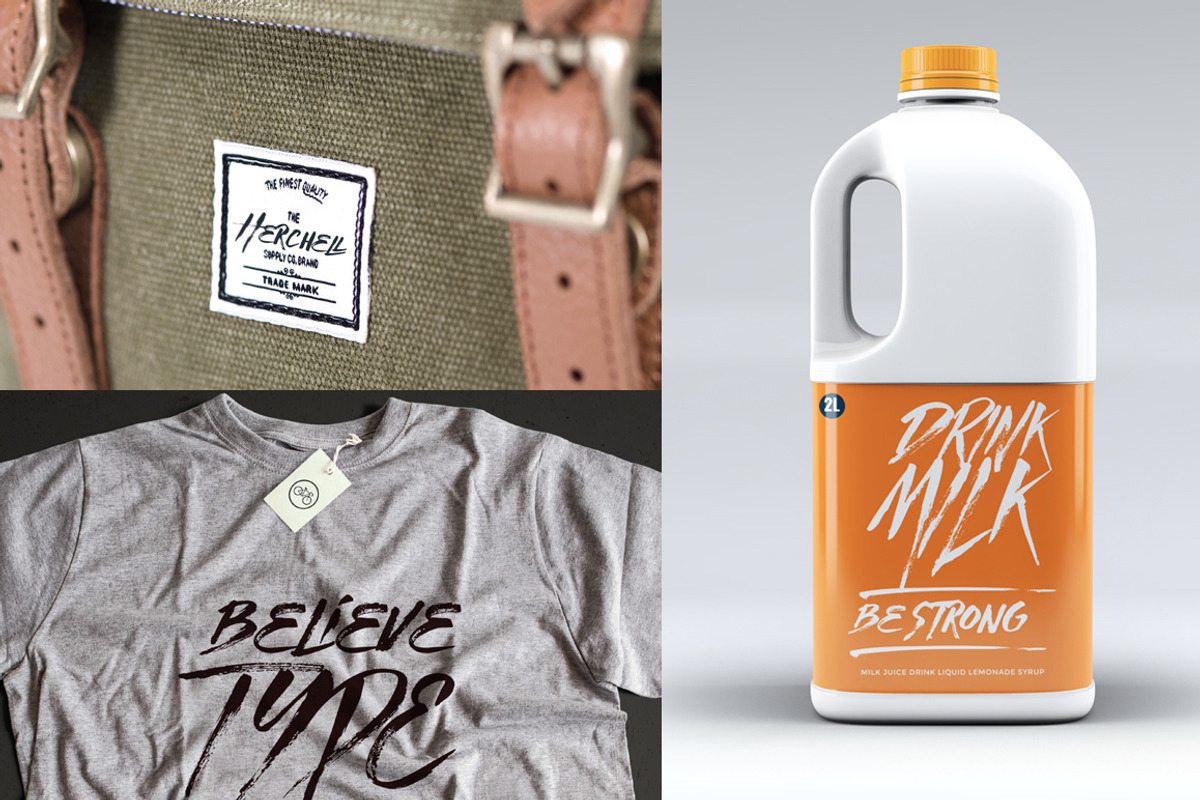
Traveller
Traveler made from brush hand drawn look, with subtle baseline adventure concept, bold character, cool ligatures. Perfect for logo marks, typographic quotes, packaging, blog headline, and many more